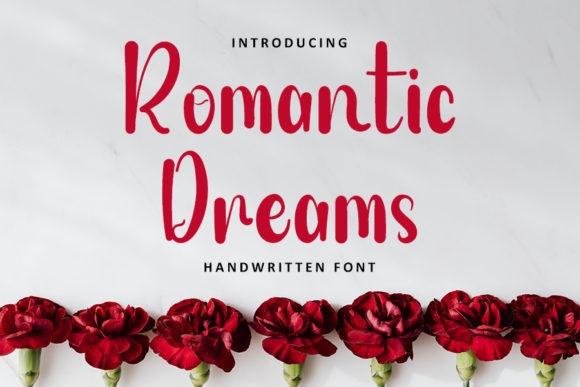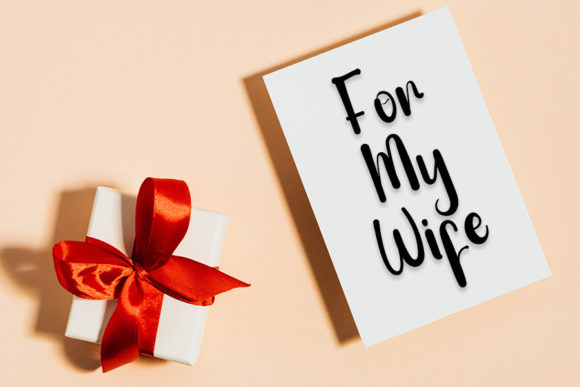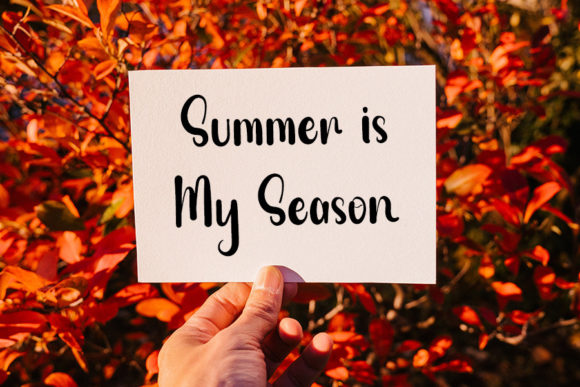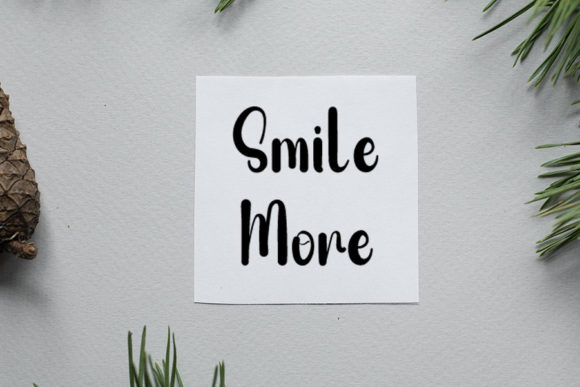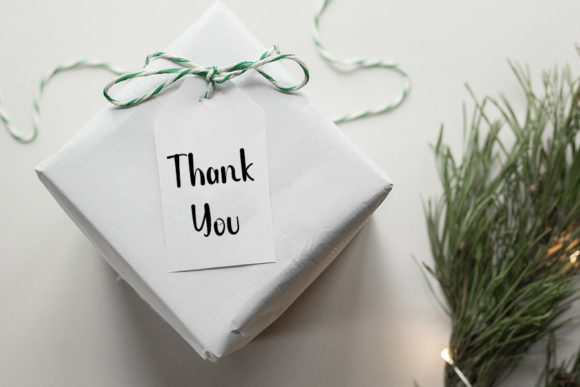
Romantic Dreams Font
Romantic Dreams, a trendy handwritten font, exudes a contemporary atmosphere and impeccable form, drawing inspiration from timeless classic calligraphy. This font is designed to infuse elegance and class into your design projects, making it a versatile choice for a variety of creative endeavors. Inspired by the beauty of classic calligraphy, Romantic Dreams strikes a balance between modern trends and timeless sophistication.
The font’s trendy handwritten style ensures that your designs maintain a modern and stylish aesthetic. It adapts seamlessly to contemporary design projects, adding a touch of innovation while maintaining a connection to the grace and beauty of classic calligraphy.
Romantic Dreams brings a timeless charm to your projects, reflecting the enduring appeal of classic calligraphy. The impeccable form of the font showcases a commitment to detail and craftsmanship, elevating the overall visual appeal. This attention to quality makes Romantic Dreams a sophisticated choice for a range of design needs.
Whether utilized in product branding, packaging, or any creative application, Romantic Dreams caters to various contexts. Its versatility allows it to write various kinds of products with a nuanced and tailored approach, ensuring that the font complements the unique aspects of each design requirement.
In summary, Romantic Dreams transcends being just a font; it’s a design element that seamlessly blends contemporary trends with timeless elegance. This font brings an aura of sophistication and class to your projects, making it an ideal choice for designers seeking a trendy handwritten font that effortlessly enhances the visual appeal of their work across diverse design applications.